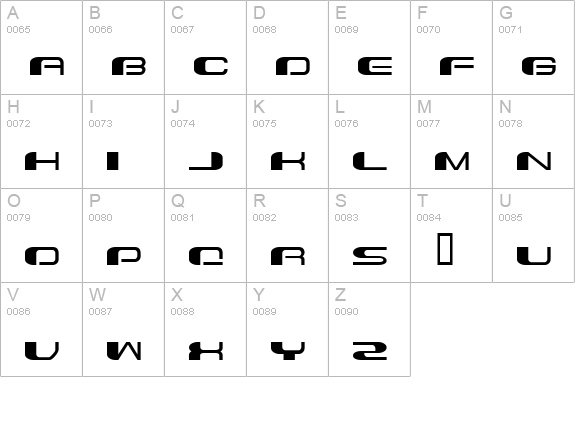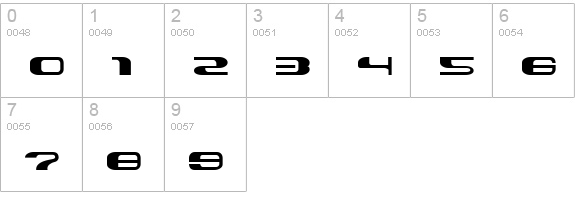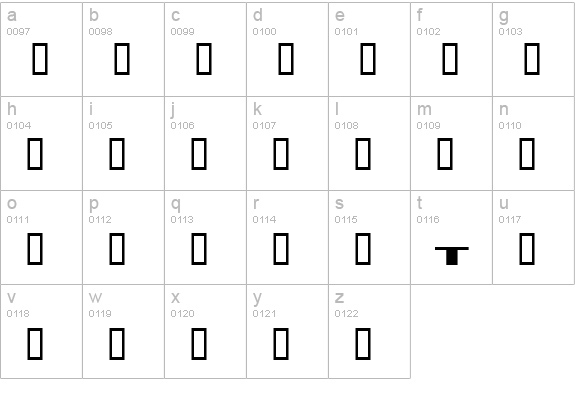
CHEMICAL Font Details
Introducing CHEMICAL font, a sleek and modern typeface perfect for giving your designs a cutting-edge appeal. With its sharp lines and futuristic design, CHEMICAL font is the ultimate choice for projects that demand a contemporary and edgy look. Best of all, this font is available for free download at FontsMarket.com, making it accessible to all designers looking to add a touch of sophistication to their creations. Embrace the boldness of CHEMICAL font and elevate your designs to new heights.